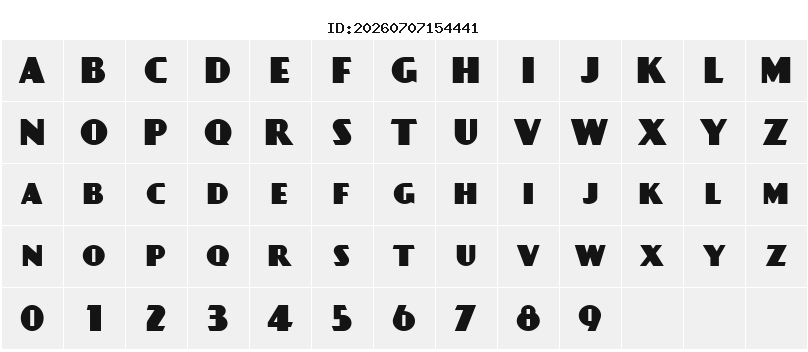
• Font Name: Day Poster Black NF
• Full Font Name: Day Poster Black NF
• Designer: Nick Curtis
• Manufacturer: Nick's Fonts
About Day Poster Black NF.ttf
Day Poster Black NF.ttf is a modern, elegant sans-serif font designed for ultimate readability and visual harmony. Perfect for branding, headlines, web design, and print materials.